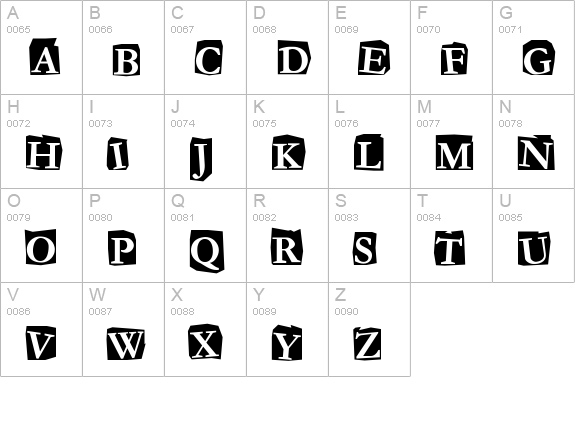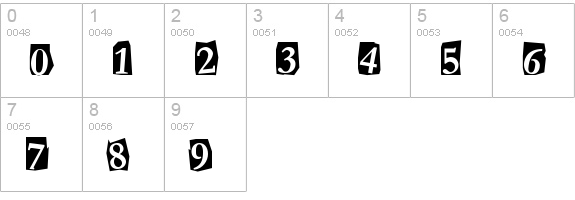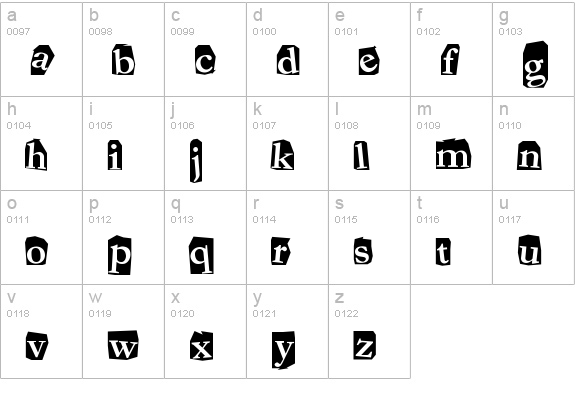
Fanzine Font Details
Fanzine font is a bold and dynamic typeface that exudes a sense of creativity and individuality. With its unique and edgy design, Fanzine is perfect for making a statement in your projects. Whether you're working on a poster, flyer, or logo, this font will add a touch of modern flair. The best part? Fanzine font is free to download at FontsMarket.com! You can easily access this versatile font and use it to elevate your designs without any cost. Don't miss out on the opportunity to enhance your projects with the stylish Fanzine font. Download it today and let your creativity shine!